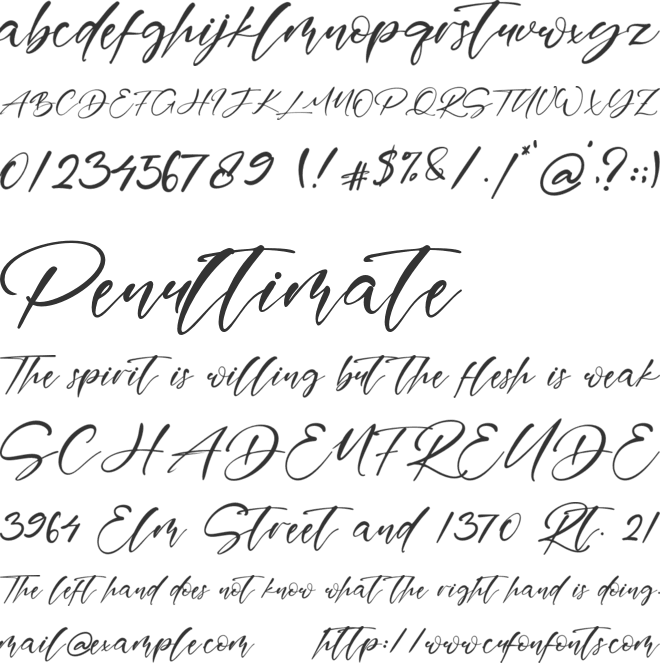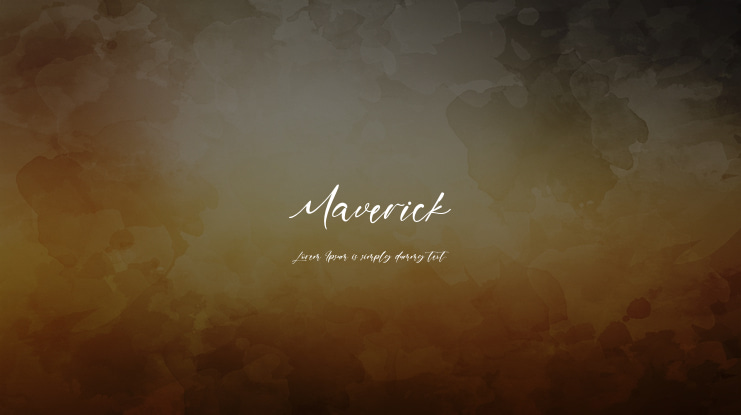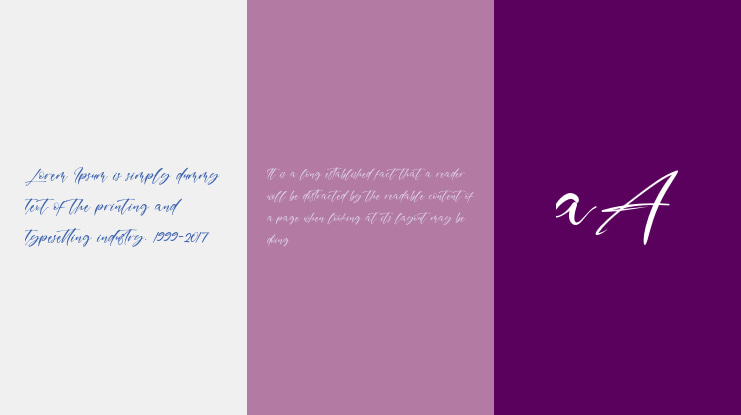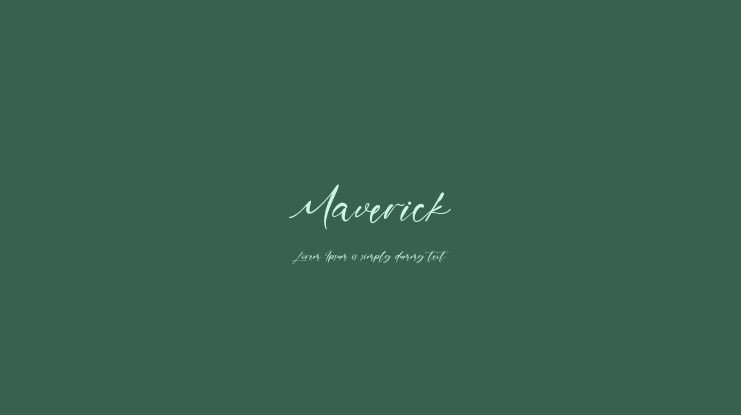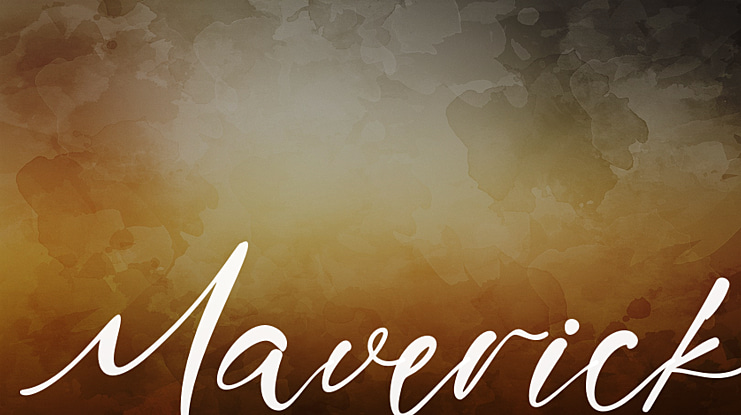
Maverick Font
Staircase Studio
Maverick A Luxury Signature Font. A collection of letters and numbers suitable your projects also great for Logotype, Branding Design, Logo Design, Digital Lettering Arts, T-Shirt/Apparel, Poster, Magazine, Signs, Advertising Design, and any design needs.Click our website :https://staircaselab.com/product/maverick/